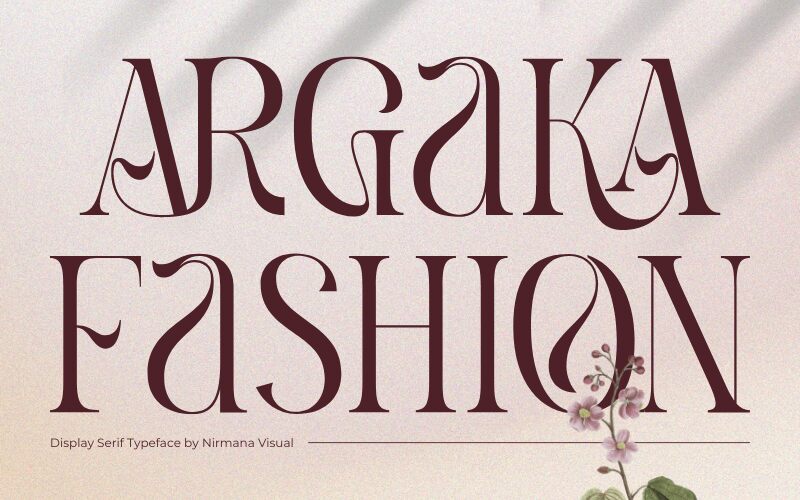
Argaka Fashion, crafted by the talented Nirmana Visual, is a captivating display font that effortlessly embodies the charm of retro aesthetics. With its sleek semi-light weight and condensed width, this font exudes a sense of elegance and modernity. Perfect for creating eye-catching headlines, logos, and branding materials, Argaka Fashion adds a touch of nostalgic glamour to any project. Whether you're designing fashion magazines, vintage-inspired advertisements or reviving classic album covers, this versatile typeface will truly make your creations stand out from the crowd.